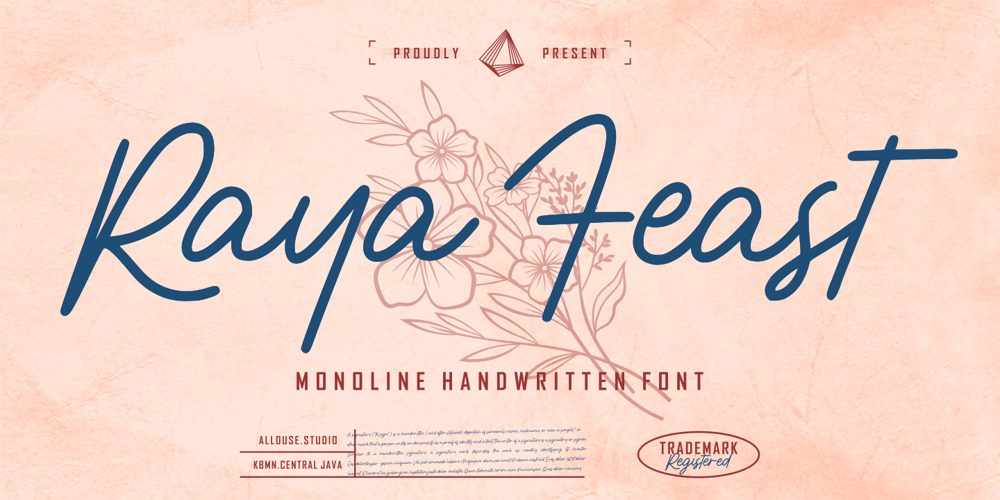
Raya Feast Font Family was designed by Fachrizal Yusuf and published by Allouse Studio. Raya Feast contains 1 styles and family package options. Proudly Presenting, Raya Feast a Monoline Handwritten Font.Raya Feast is perfect for any titles, logo, product packaging, branding project, megazine, social media, wedding, or just used to express words above the background.Raya Feast also come with Multi-Lingual Support.